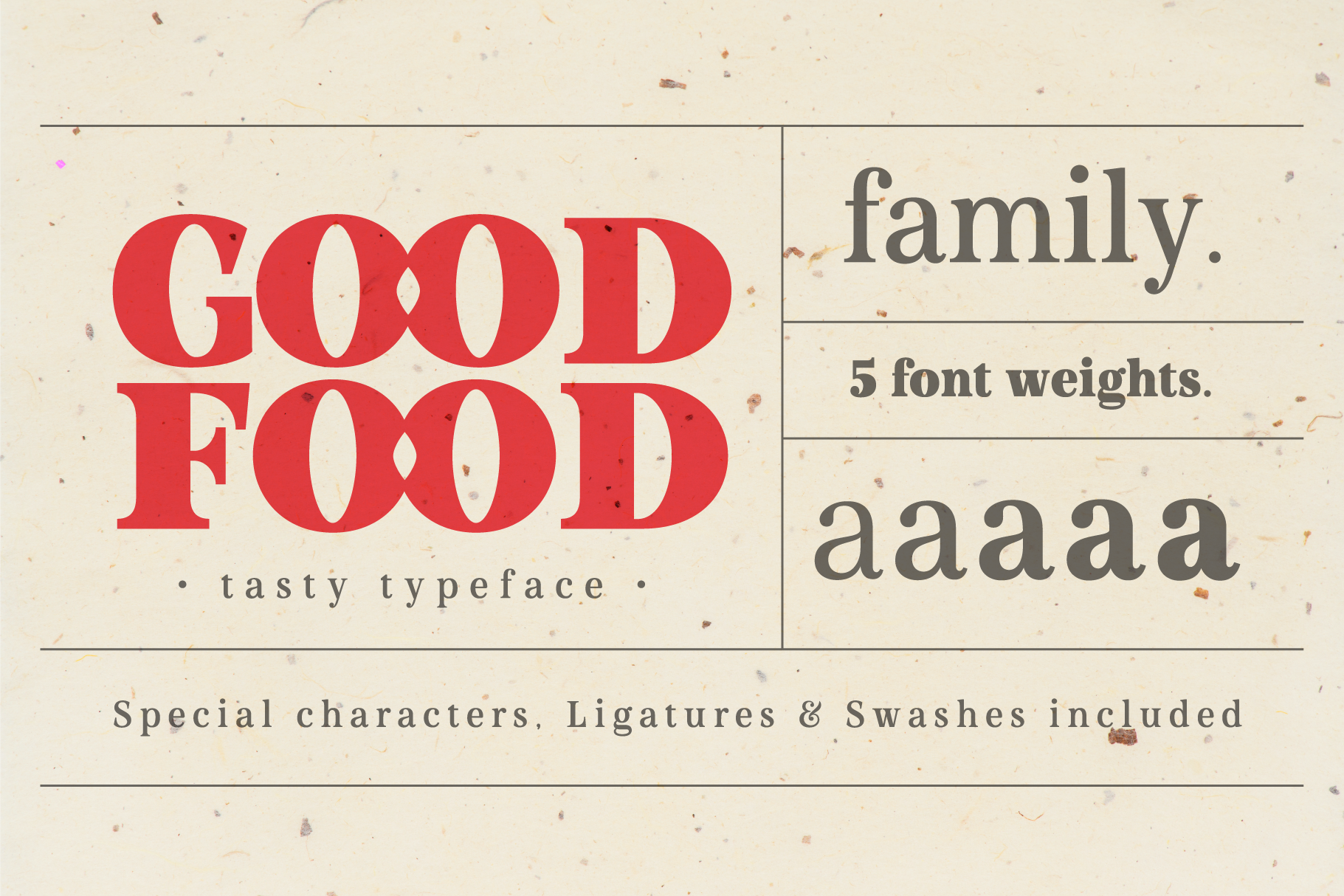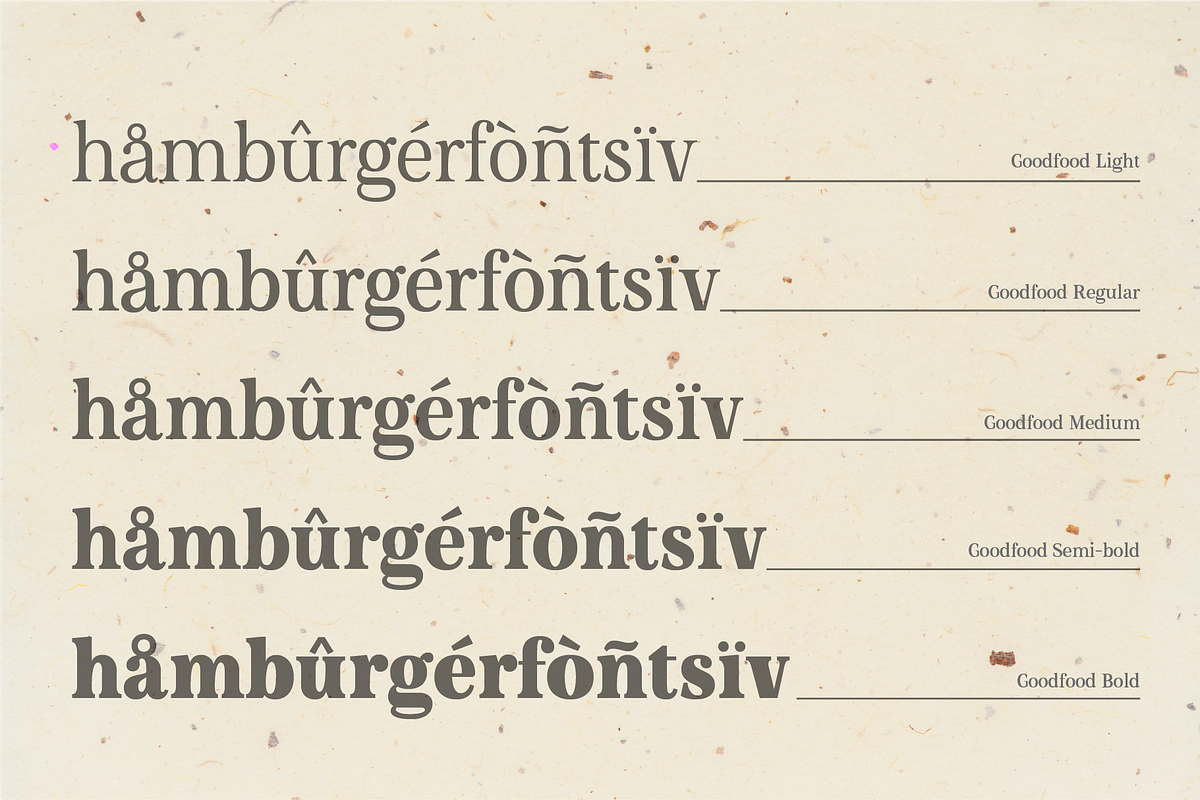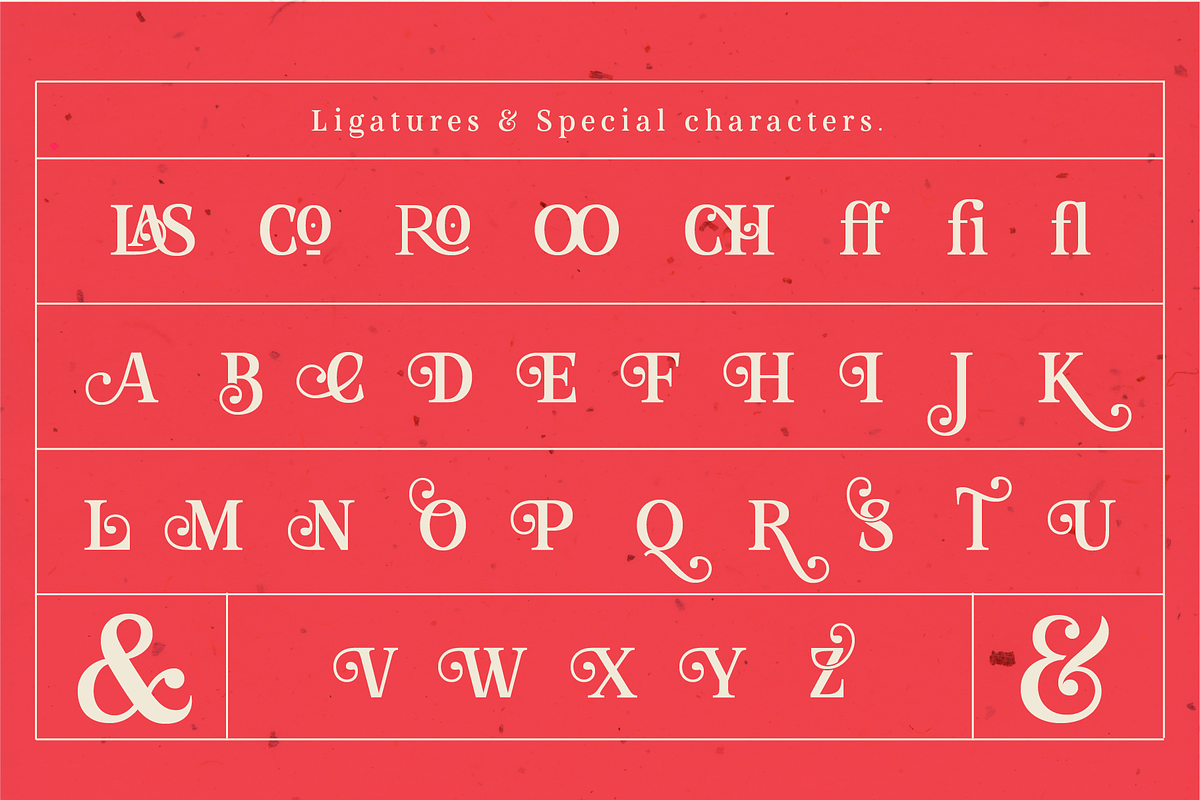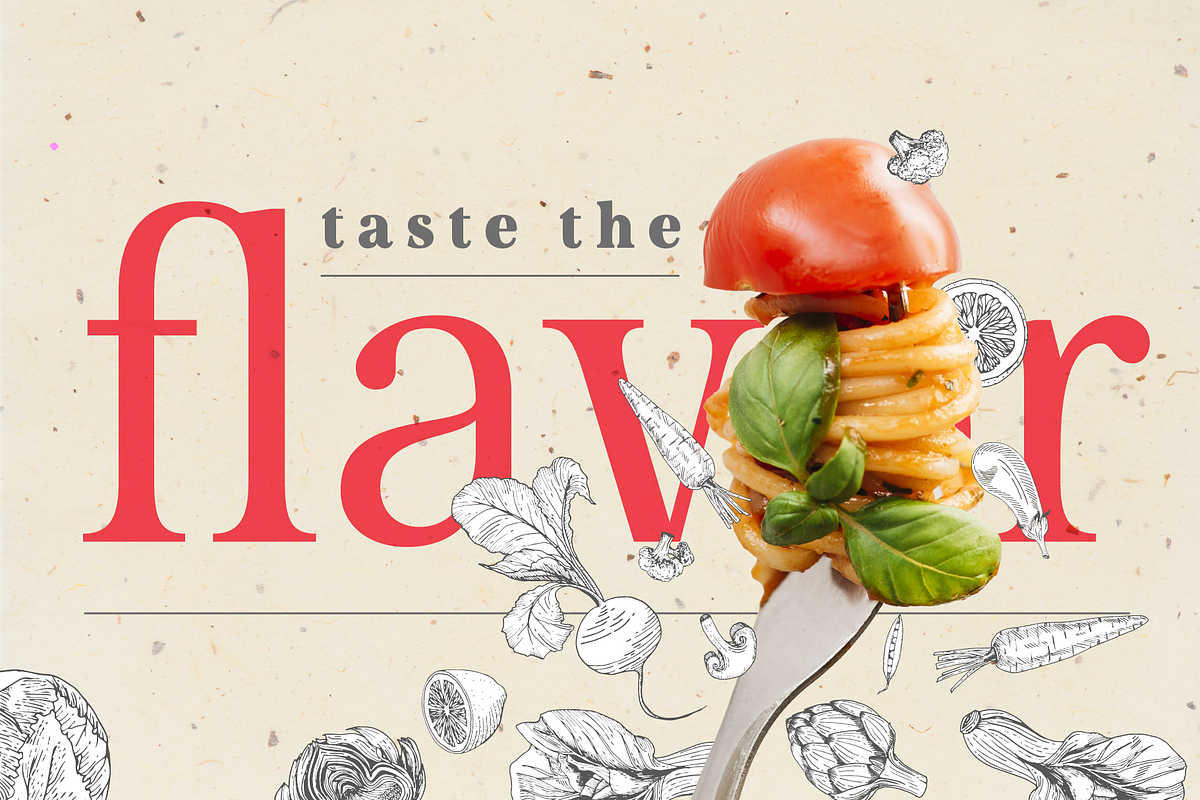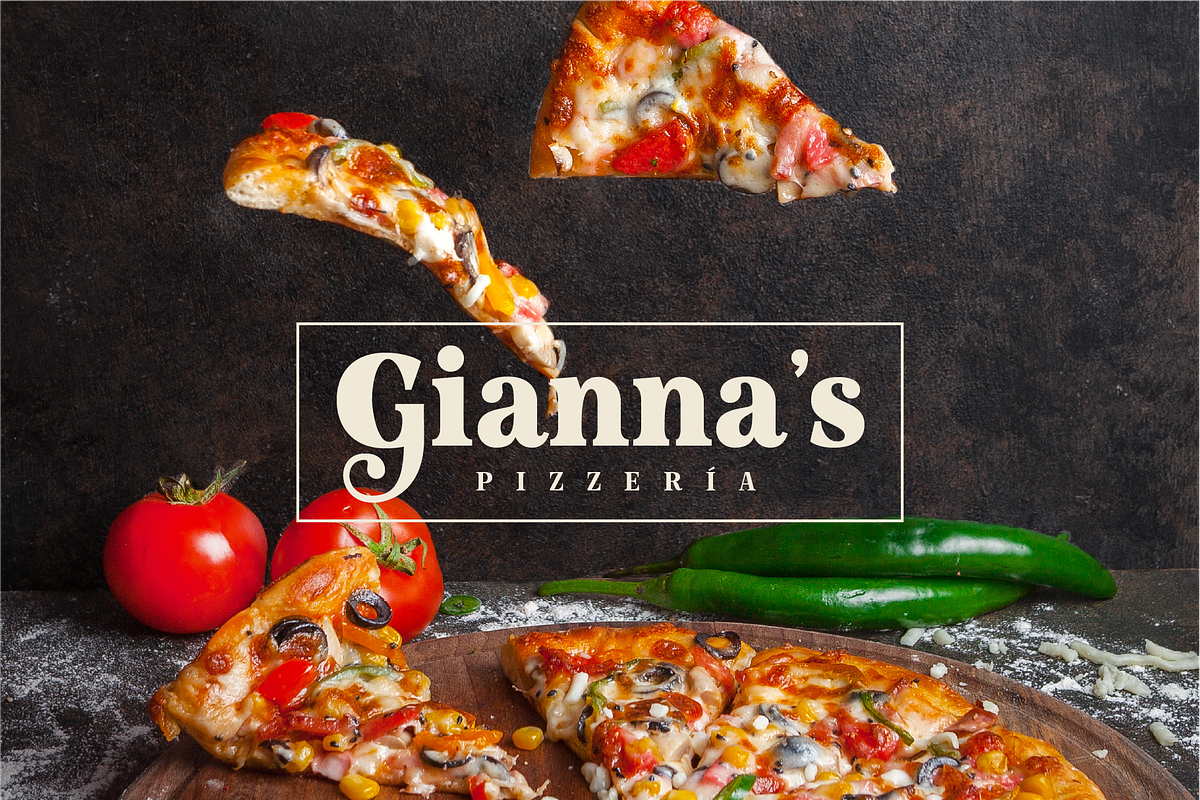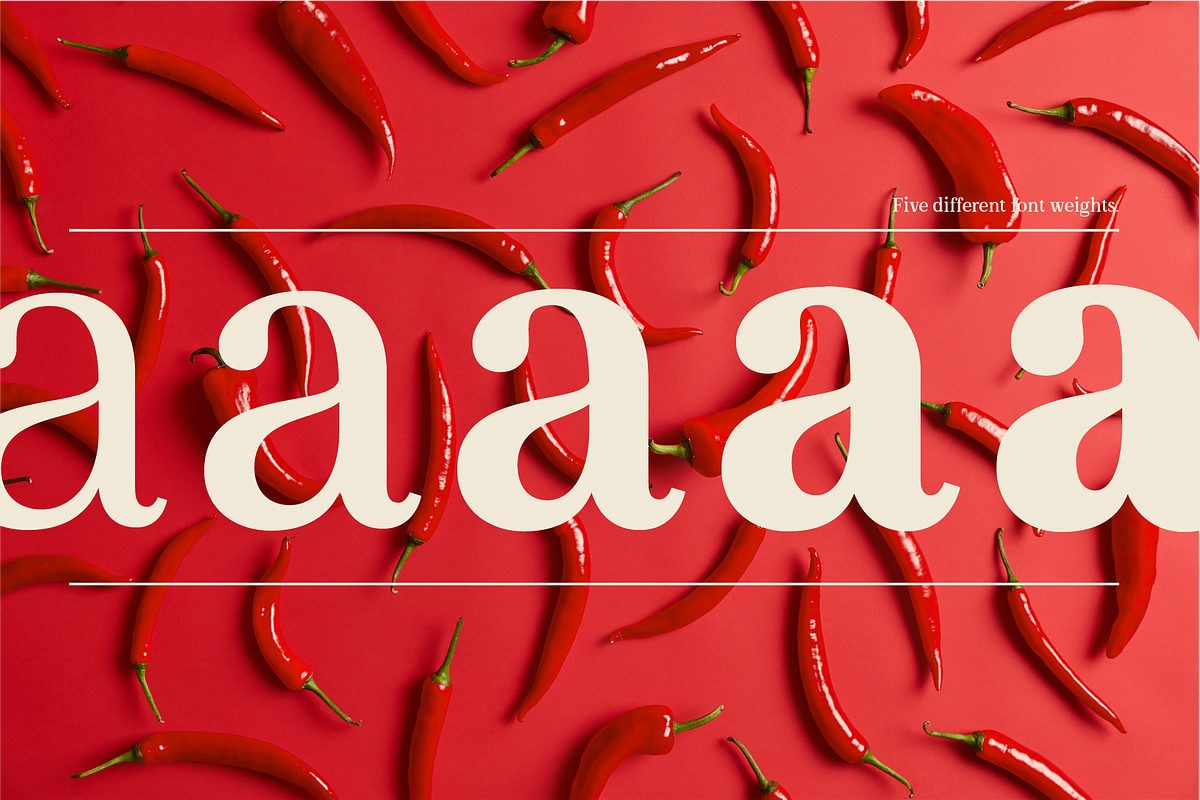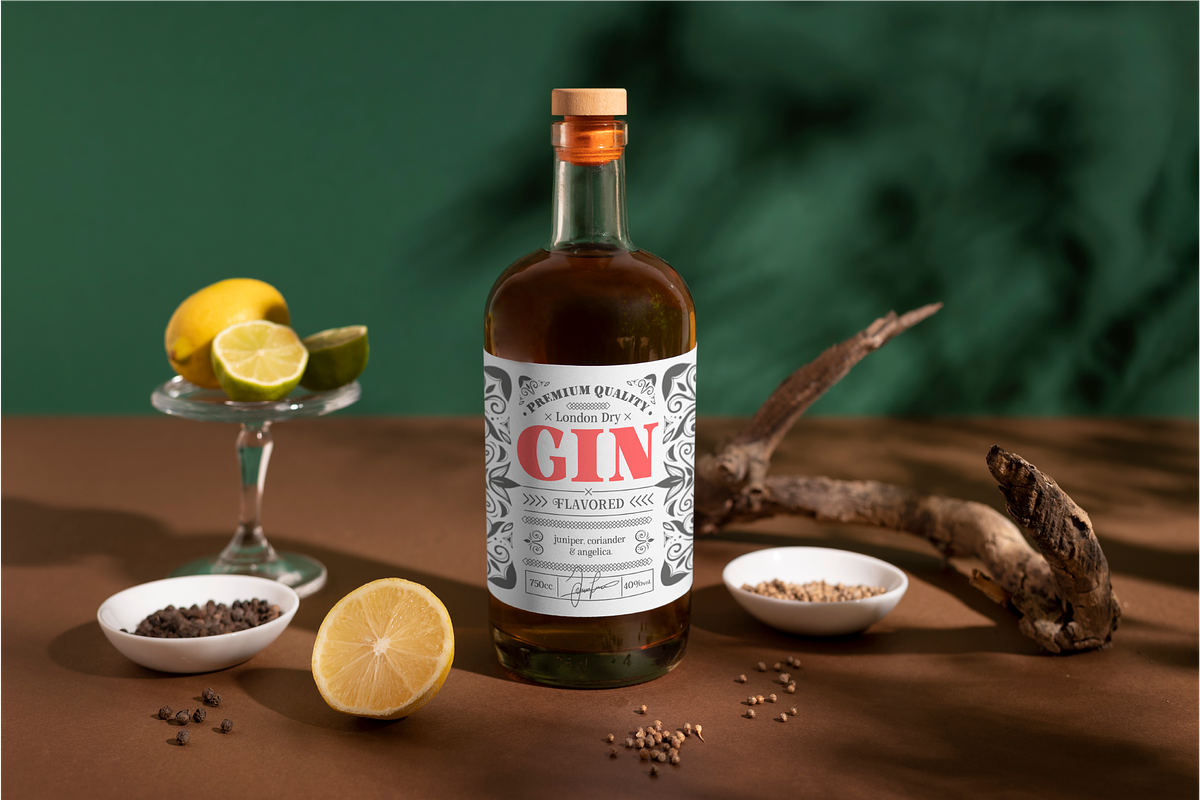
Goodfood Font Family
Introducing our stunning Goodfood Font Family, a versatile and delicious sans serif display typeface that is perfect for for your most tasteful design projects. With a total of five different weights, this font family offers you ultimate flexibility in creating captivating and impactful designs.
Whether you're working on a logo, branding materials, product packaging, or editorial projects, this font family will enhance the overall aesthetic and make your designs stand out.
To further enhance creativity, Goodfood Font Family includes alternates and ligatures. These additional characters provide you with ample possibilities to customize and stylize your typography, creating unique and eye-catching designs. By utilizing alternates and ligatures, you can bring a distinctive touch to your headers, titles, headlines, and other important elements of your design.
Here's what you can expect from this font family:
Five Weights: The font family offers five weights, ranging from Light to Bold. This wide range allows you to experiment with different typographic hierarchies and create visually appealing compositions.
Alternates: The inclusion of alternates expands the versatility of this font family. By simply swapping characters, you can create different stylistic variations, giving your designs a fresh and creative look.
Ligatures: The font family also includes ligatures, which are special characters that combine two or more letters into a single unique glyph. Ligatures ensure smooth and visually pleasing connections between characters, resulting in a harmonious and cohesive typography.
Superior Legibility: While the Display Serif Font Family features elegant and decorative serifs, it doesn't compromise on legibility. The carefully crafted characters and balanced letterforms ensure readability across various sizes and mediums.
Extensive Language Support: This font family supports a wide range of languages, allowing you to create designs for global audiences with ease.
Whether you're a professional designer looking to elevate your creative projects or an individual seeking a unique font for personal use, Goodfood Font Family offers an impressive array of options. Add sophistication, versatility, and a touch of uniqueness to your designs with this remarkable font family.
Enhance your design projects and express your creativity with Goodfood Font Family!